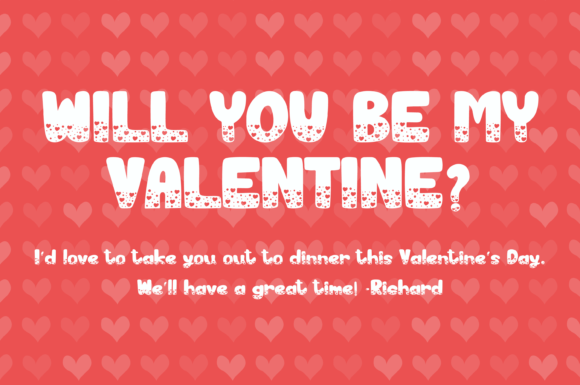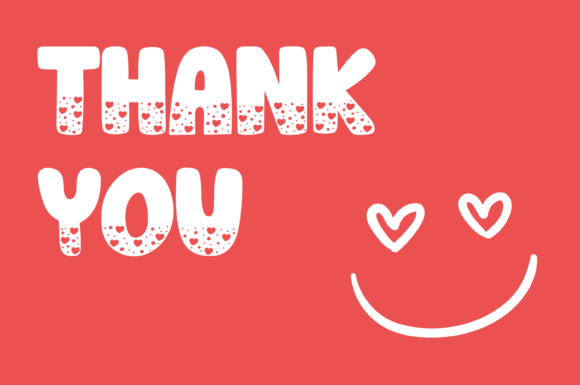
The Perfect Touch: Unleashing Creativity with Hole Heart Font
Remember that moment when you’re brainstorming ideas for a new project, and suddenly, a spark of creativity strikes? You envision something playful, charming, and uniquely yours. That’s exactly the kind of magic that Hole Heart Font brings to the table.
Hole Heart Font is a delightful, whimsical font that adds a touch of warmth and personality to any design. Whether you’re crafting a children’s book, designing a greeting card, or creating a social media campaign, this font is the perfect companion to elevate your creative ideas.
For designers, Hole Heart Font is a valuable asset that can instantly transform a project from ordinary to extraordinary. Its versatility and charm make it an excellent addition to any creative arsenal, and its unique style is sure to leave a lasting impression on your audience.
Hole Heart Font Key Features
- Size: The font family consists of multiple weights, ranging from Extra Light (100) to Extra Bold (800).
- Unique Characteristics: The font features a unique, hand-drawn aesthetic with intricate details and subtle texture, giving it a distinctive and eye-catching appearance.
- Character Set: Hole Heart Font includes a comprehensive character set, including Latin, Cyrillic, and Greek alphabets, as well as punctuation and symbols.
Hole Heart Font Review
When I first saw the “Hole Heart Font”, I was immediately drawn to its quirky and playful vibe ✨. The unique combination of round and pointed shapes creates a visually interesting effect that can add a touch of whimsy to any design. The font’s open and airy feel makes it perfect for digital designs, such as social media graphics, website headers, and app icons.
One of the things that I appreciate about the “Hole Heart Font” is its versatility ✨. It comes in a range of weights and styles, from light and delicate to bold and playful. This makes it easy to use in a variety of contexts, from body text to headings and titles.
- ⚠️ The “Hole Heart Font” may not be suitable for professional or formal designs, as its playful and quirky vibe may come across as unprofessional.
- ⚠️ The font may not be as legible at small sizes, due to its complex and intricate design.
- ⚠️ The “Hole Heart Font” may not be compatible with all operating systems or devices, due to its unique design and character set.
Overall, I think the “Hole Heart Font” is a great choice for designers who want to add a touch of personality and whimsy to their designs. While it may have some limitations, its unique design and versatility make it a valuable addition to any design library.
The Hole Heart Font is perfect for:
- Creativity-focused designs (e.g., art, graphics, or illustrations)
- Emotional or expressive content (e.g., quotes, poetry, or personal stories)
- Whimsical or playful designs (e.g., children’s books, party invitations, or social media graphics)
Alternatives to Hole Heart Font
Bebas Neue is a modern sans-serif font designed for headings and titles. It features a clean and minimalist aesthetic, making it suitable for a wide range of designs, from digital products to print materials.
Compared to Hole Heart Font, Bebas Neue has a more neutral and straightforward look, lacking the distinctive distressed effect of Hole Heart. However, Bebas Neue’s simplicity makes it a versatile choice for various design projects.